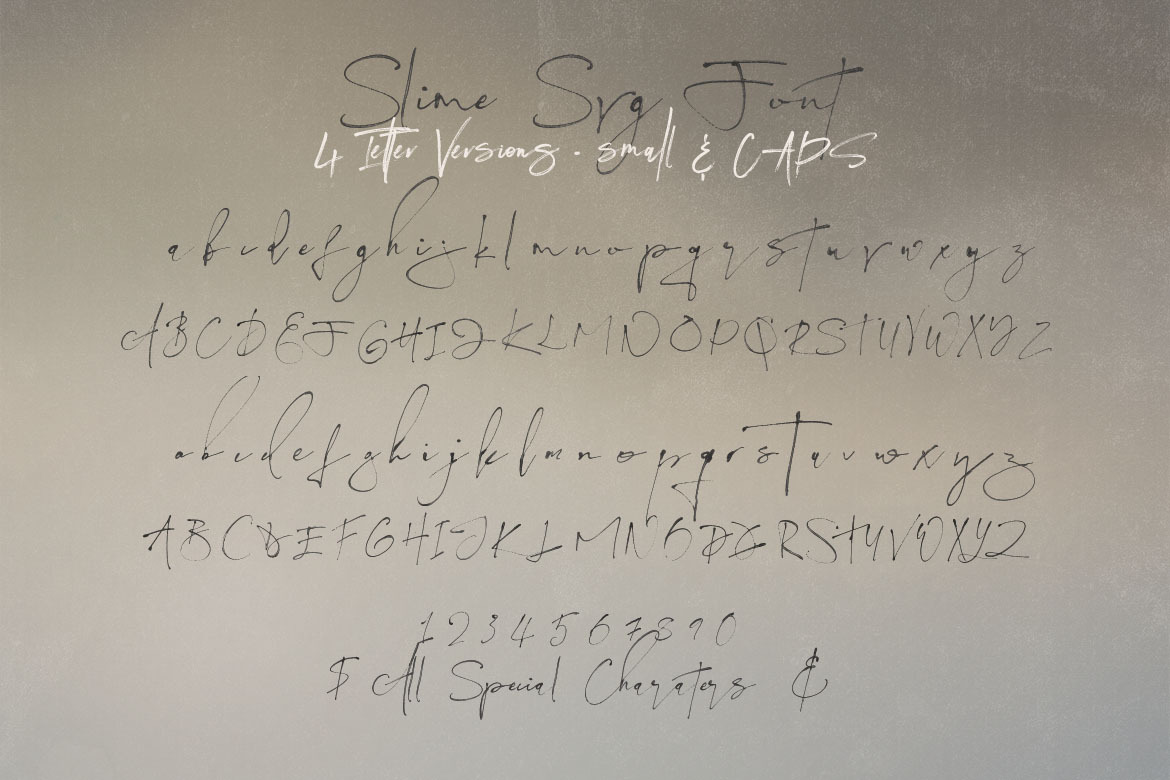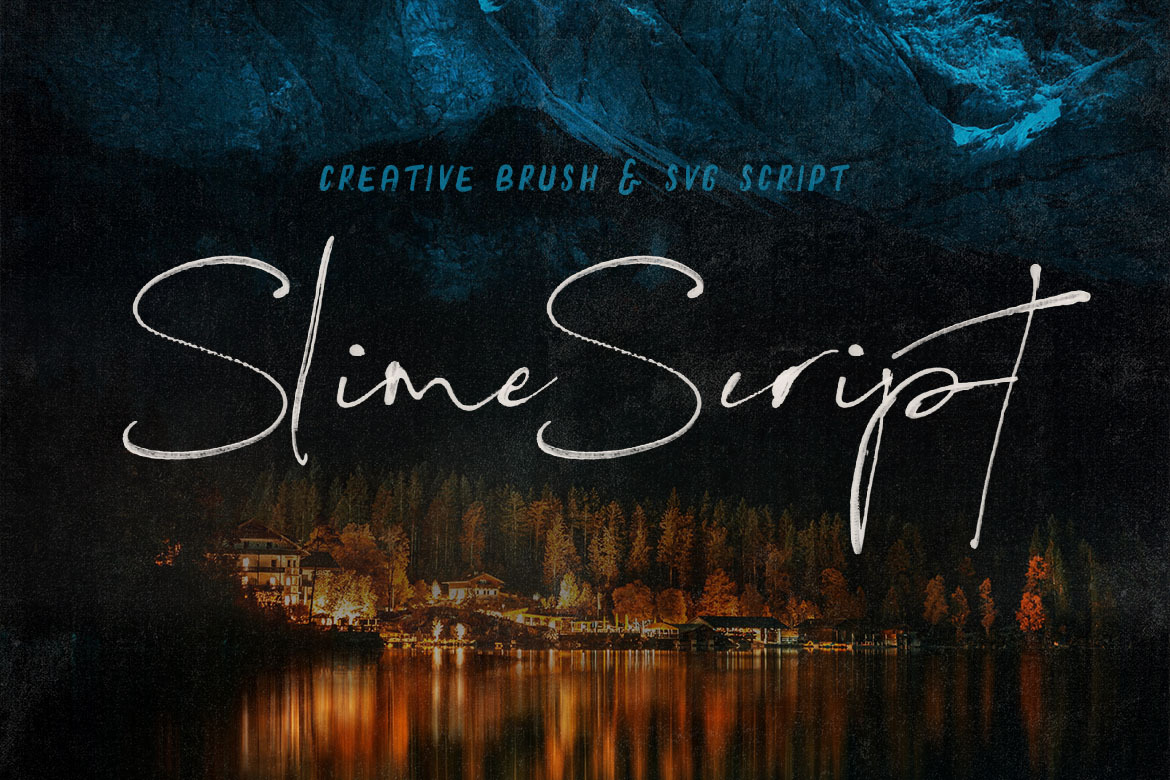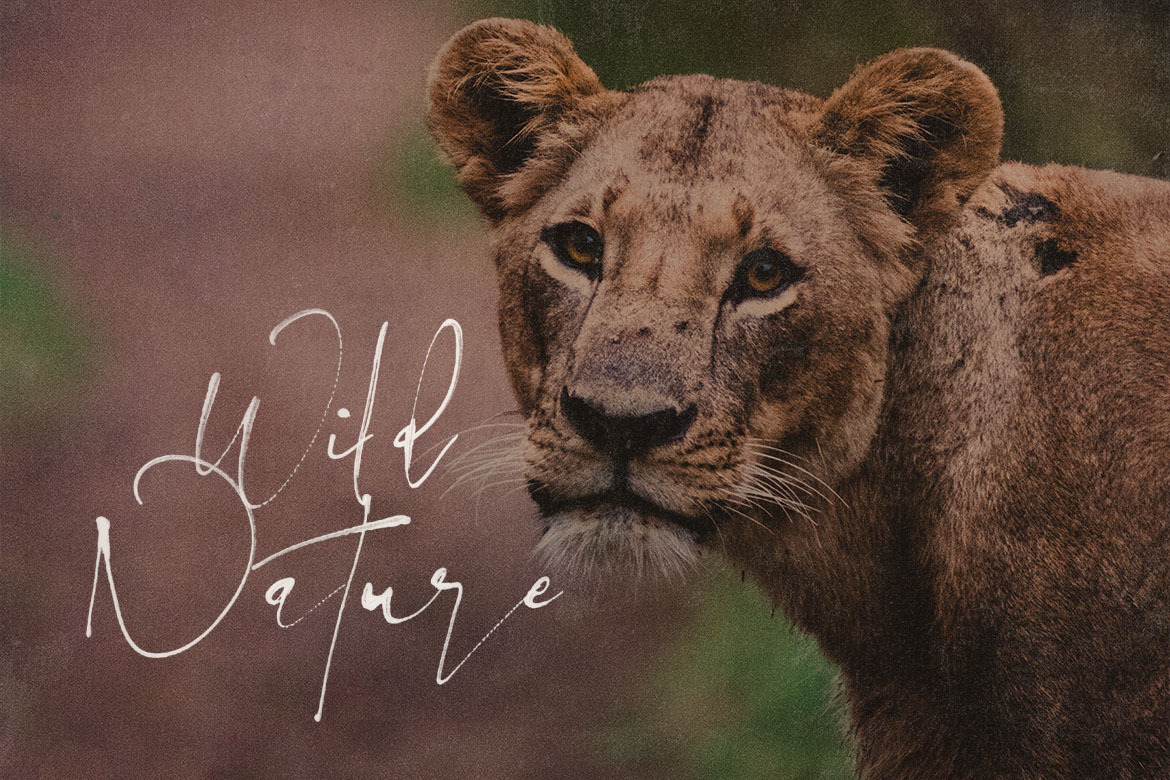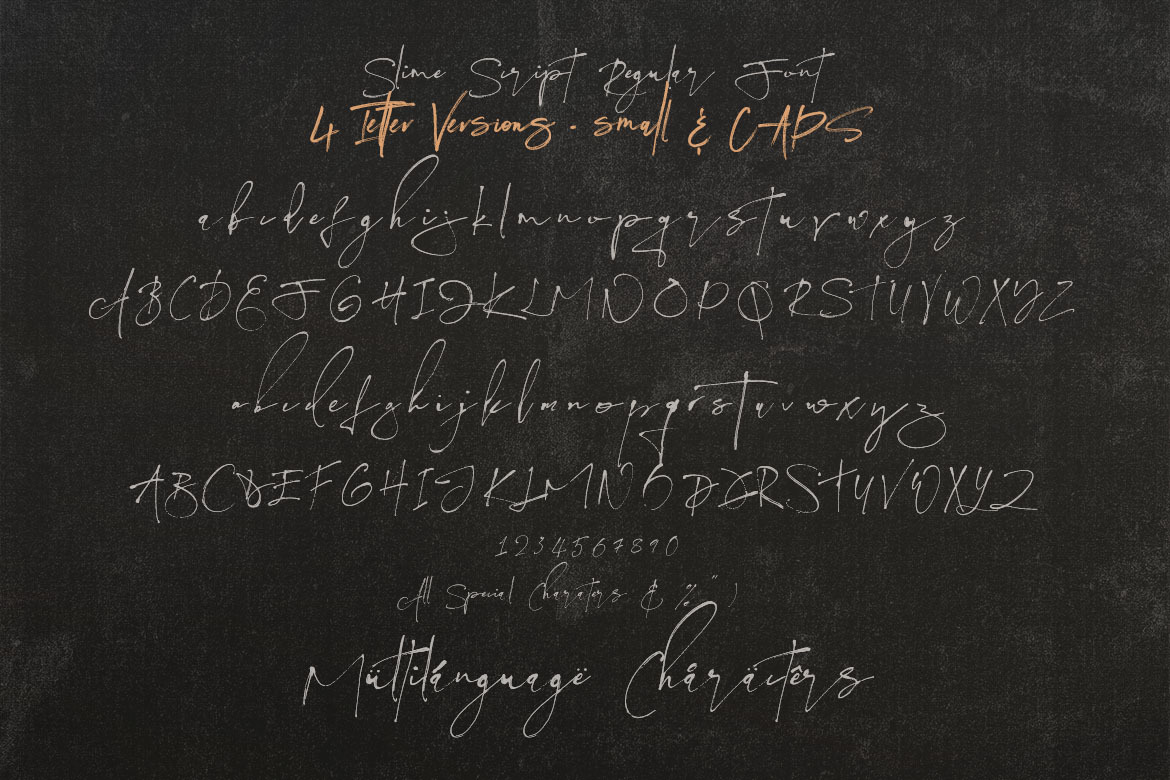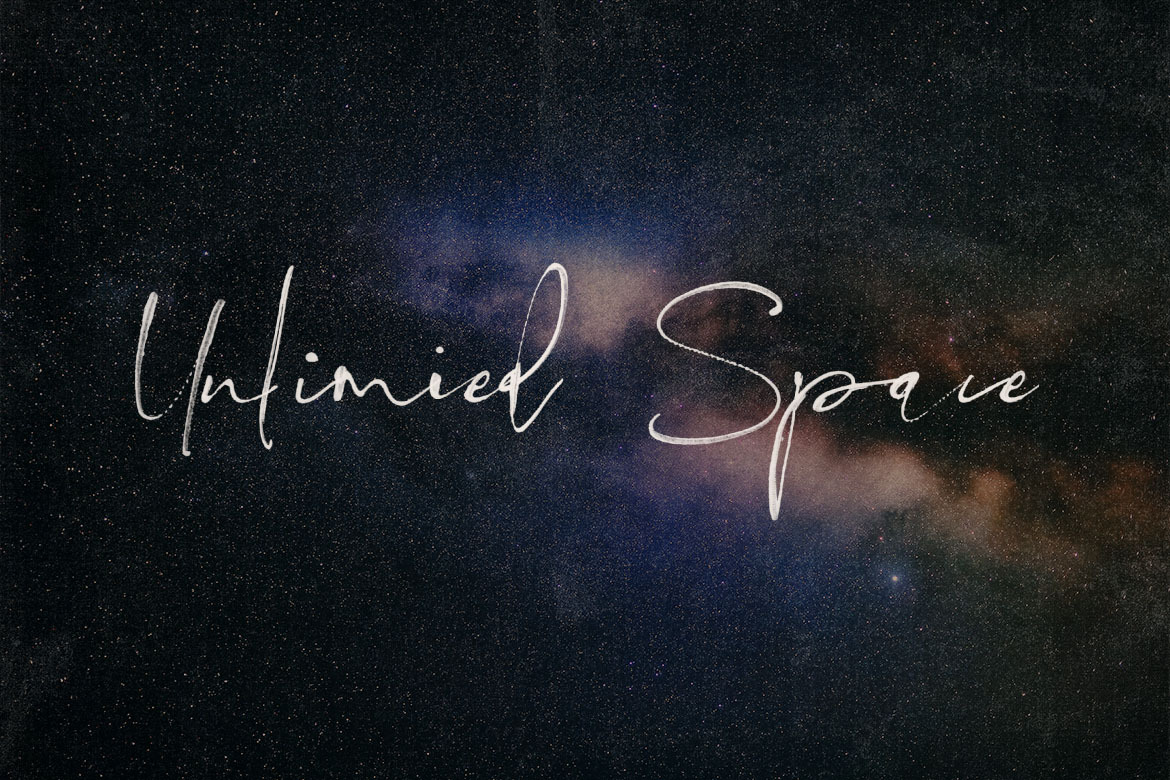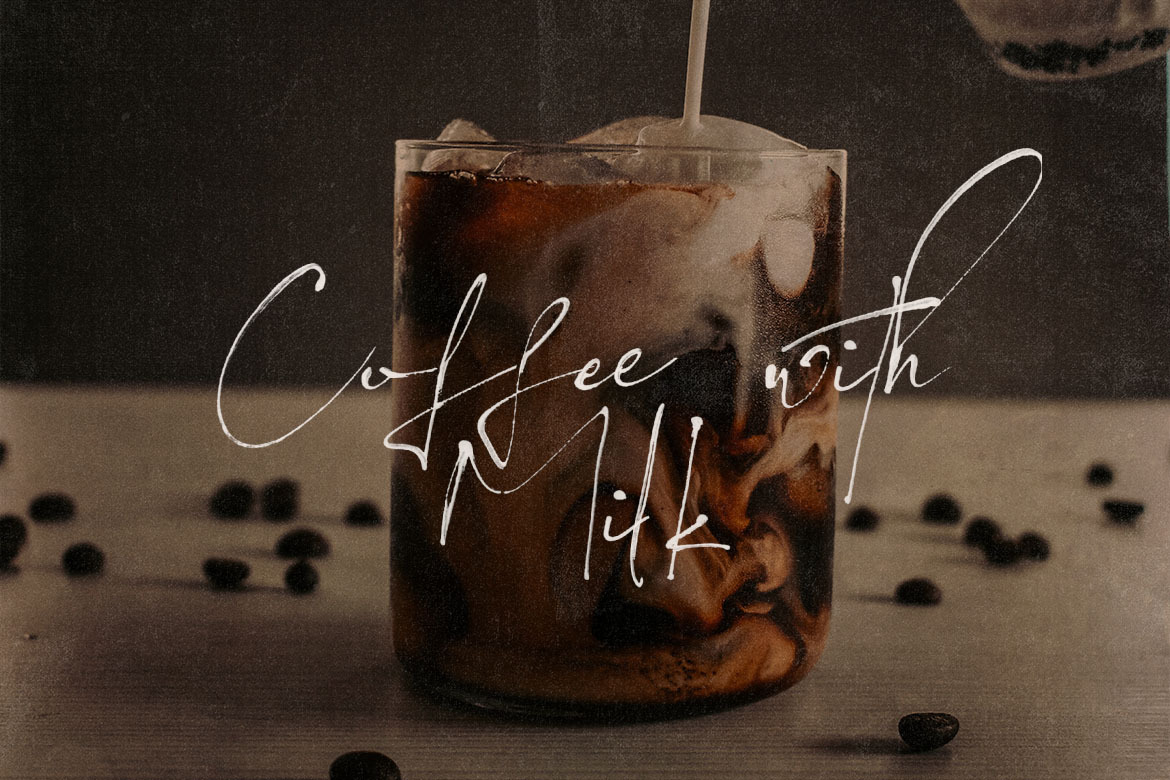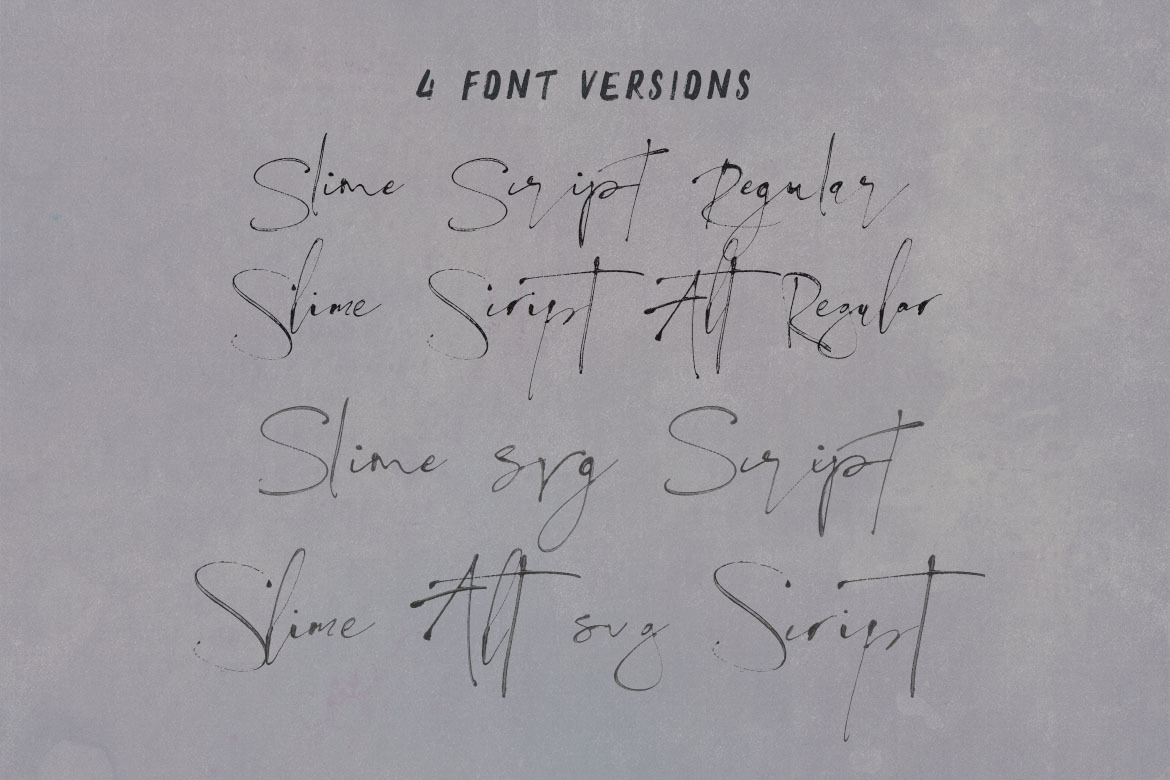
Intro SALE - only $9 for a limited time! Regular price is $14! Enjoy :) Marker, brush, signature or grunge style script font for your new projects. Great for grunge or artistic projects! - 2 color or SVG opentype fonts - working only in Photoshop CC 2017+, Illustrator CC 2018 and some Mac apps! - 2 regular OTF & TTF fonts Instructions: - Color or SVG fonts are pretty new technology – they currently show up in Photoshop CC 2017+, Illustrator CC 2018 and some Mac apps. - Please setup fonts to smooth style if you see crispy borders on your color fonts in Adobe Photshop! - Be sure you'll create type area on whole window...if you can see some part of letters are outside this area you need to space it into area to see letters propertly! - If you need realistic brush effect on SVG font please select : 1. dark font on light background - Multiply layer effect & 2. light font on dark background - Screen layer effect on font layer For any help regarding this font, please feel free to contact me through my profile page and I’ll be glad to offer support. | Slime SVG Script Font | Cruzine